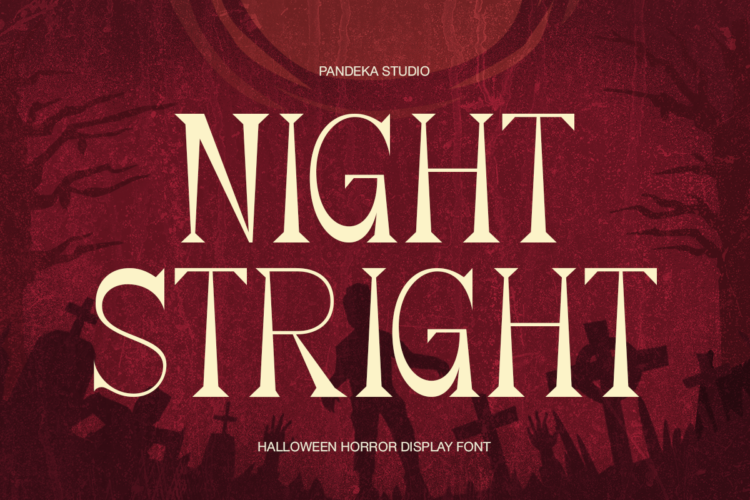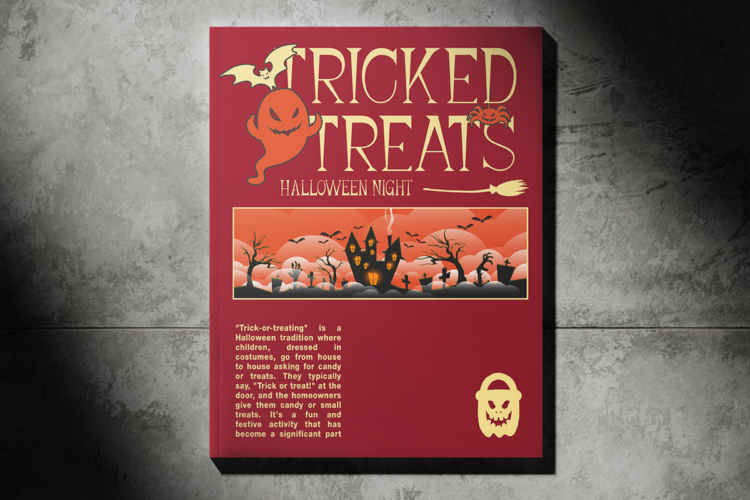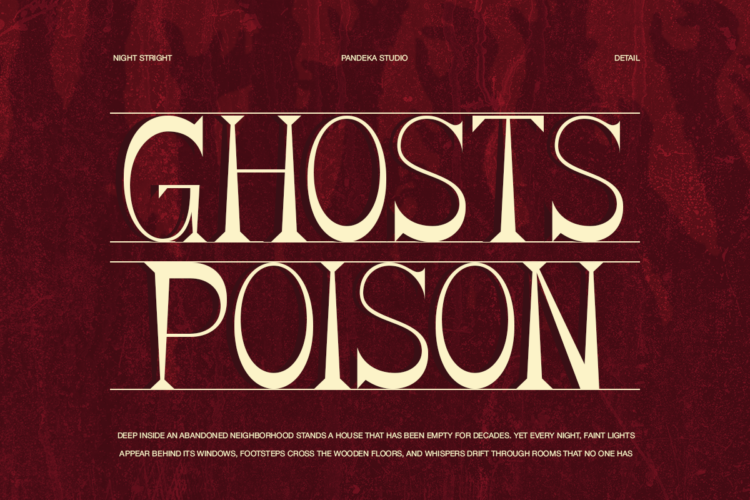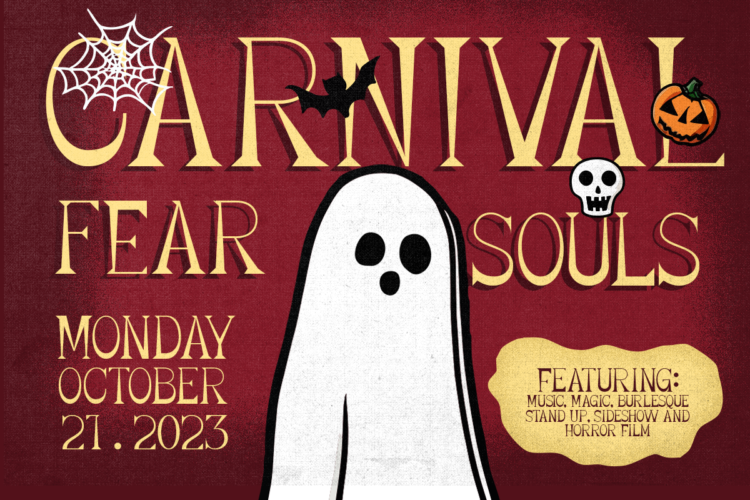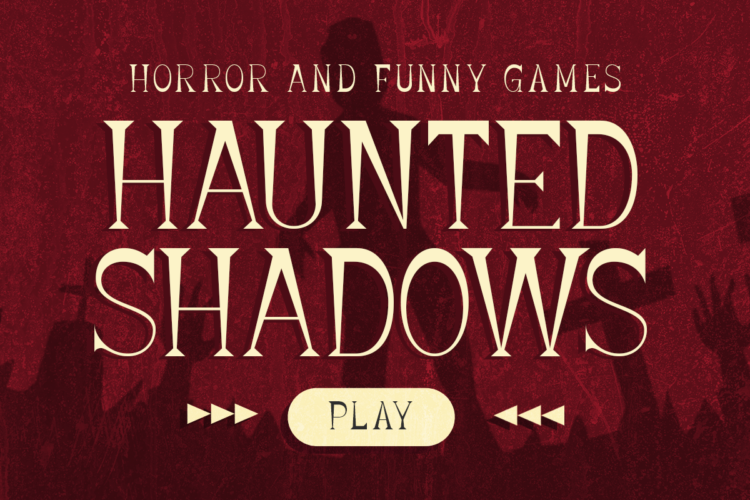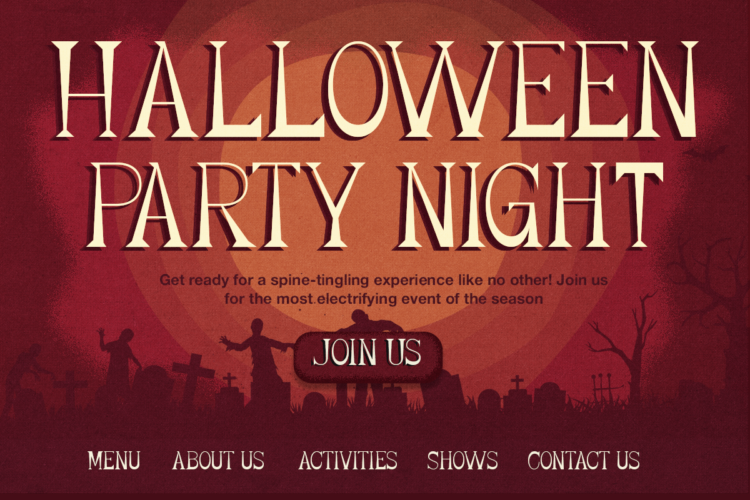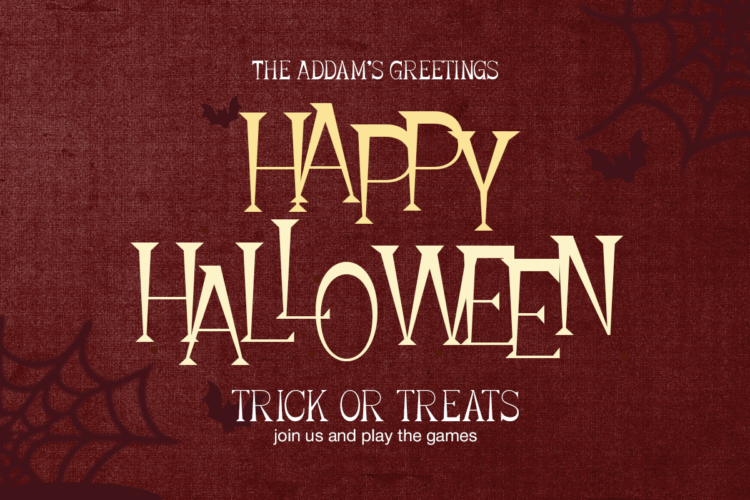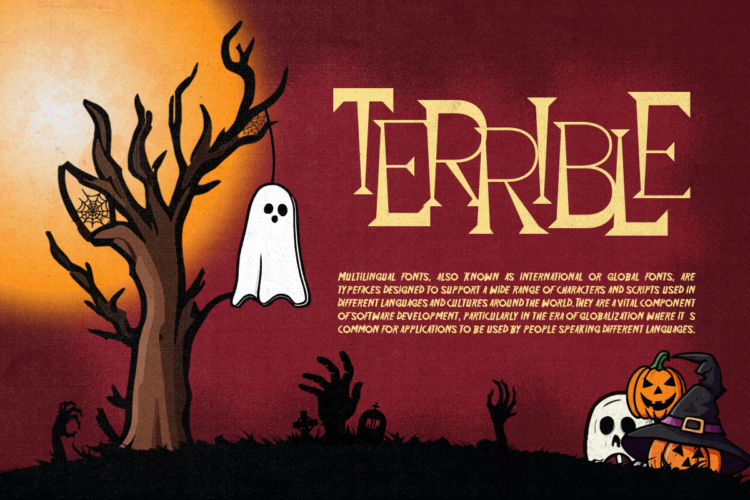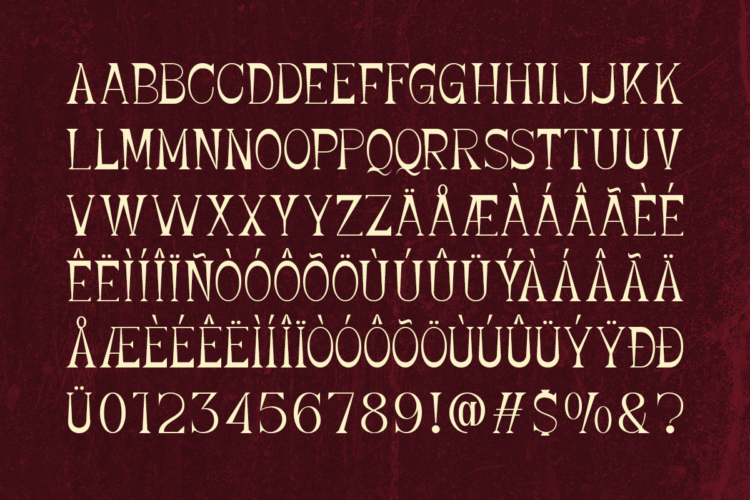
Night Stright – Horror Display Font
Night Stright Regular
Night Stright is a Halloween horror display font featuring elegant condensed letterforms, sharp details, and a dark theatrical character. Designed to create an eerie yet sophisticated atmosphere, it works perfectly for Halloween themes, horror titles, haunted events, spooky entertainment, and seasonal visual identities.
Night Stright comes in 1 Regular style, making it ideal for Halloween posters, horror movie titles, haunted house graphics, party invitations, event promotions, game artwork, social media designs, merchandise, and themed branding. Night Stright brings a dramatic and mysterious presence to headlines and display typography, making every Halloween composition feel haunting and memorable.